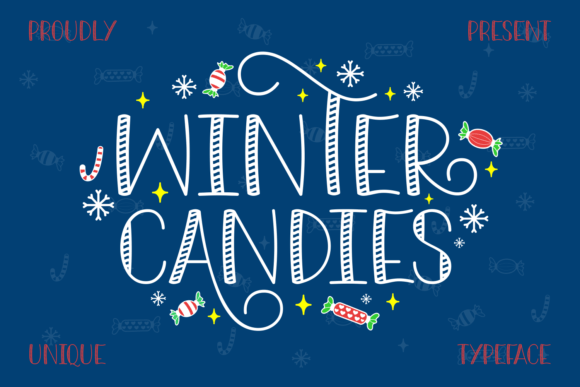
Behold, the enchanting Winter Candies Font, a treasure from the realm of display fonts, designed by the masters at Creative Fabrica Fonts. This remarkable creation is a symphony of charm, intricacy, and Christmas spirit, tailored to weave magic into your creative projects.
Step into a realm where fonts take on a life of their own, becoming more than mere letters. Winter Candies Font is a luscious display font, as sweet and striped as a candy cane, brimming with the essence of the Christmas season.
Imagine your invitations, cards, and gift tags adorned with this captivating font, each character a sparkling ornament that dances before the eyes. Craft advertising materials that burst with joy and headlines that sing with festive cheer. With Winter Candies Font as your trusty companion, your designs will be transformed into enchanting winter wonderlands.
The PUA-encoded nature of this font is an invitation to explore a realm of hidden treasures. Access a cornucopia of glyphs and swashes that unlock endless possibilities for customization. Unleash your creativity and create captivating designs that will transport you and your audience to a world of whimsy and delight.
Winter Candies Font is more than just a font; it is a gateway to a world of creative enchantment. Let its magic flow through your designs and experience the joy of creating something truly extraordinary. Embrace the spirit of Christmas, let your imagination soar, and embark on a journey of creativity like never before.